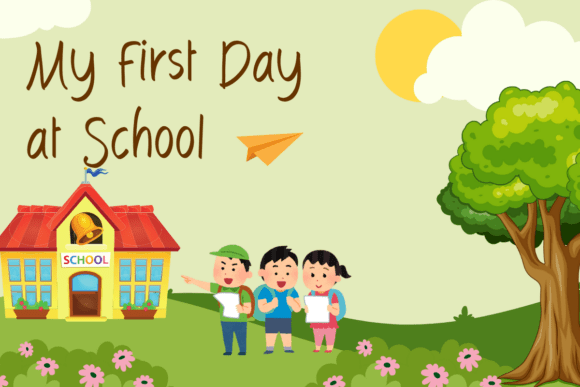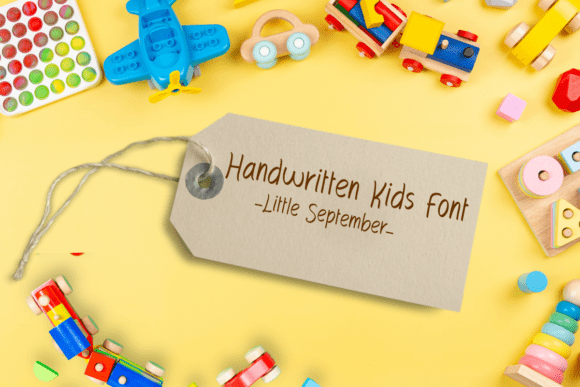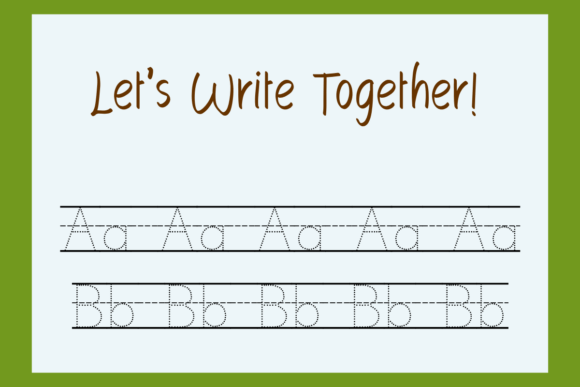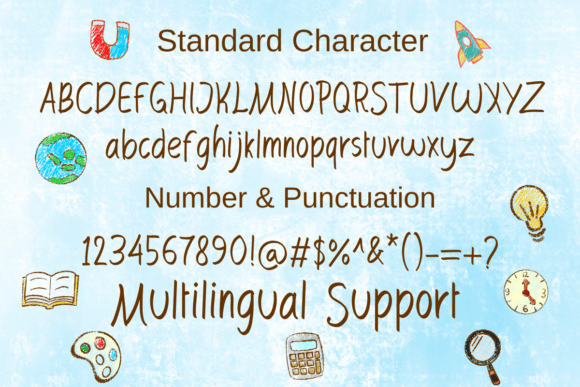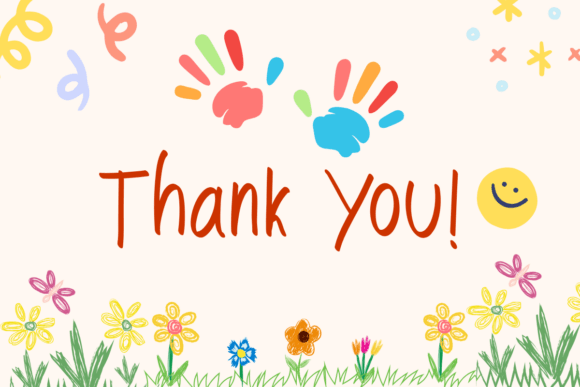
Introduction to Little September Font
Meet Little September, a charming handwritten font that captures the gentle feeling of early autumn.
With its clean, slightly playful strokes and natural handwritten flow, this font brings a cozy and personal touch to any design — perfect for quotes, invitations, branding, stationery, and more Let your designs feel warm and sincere with Little September — simple, soft, and beautifully handwritten.